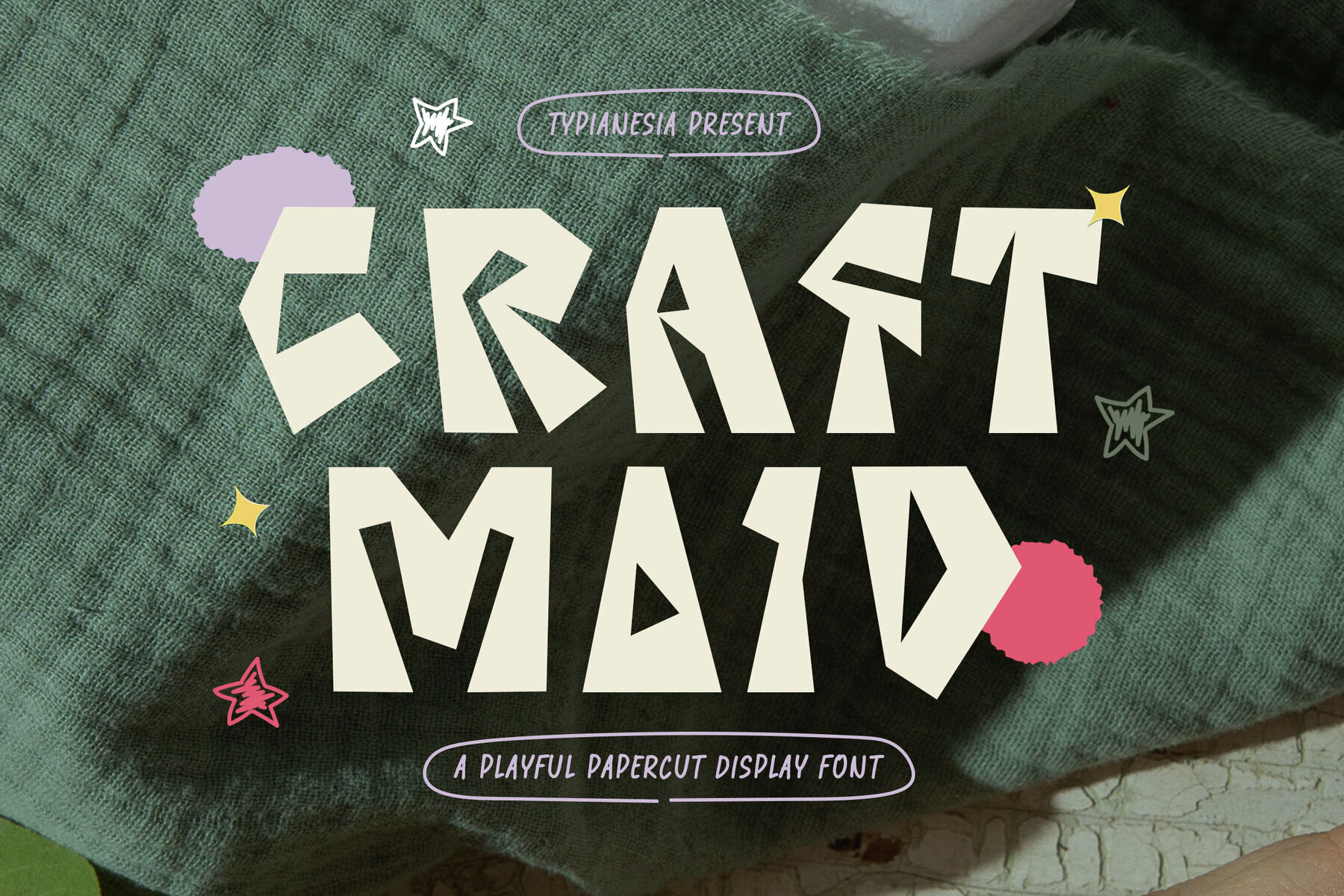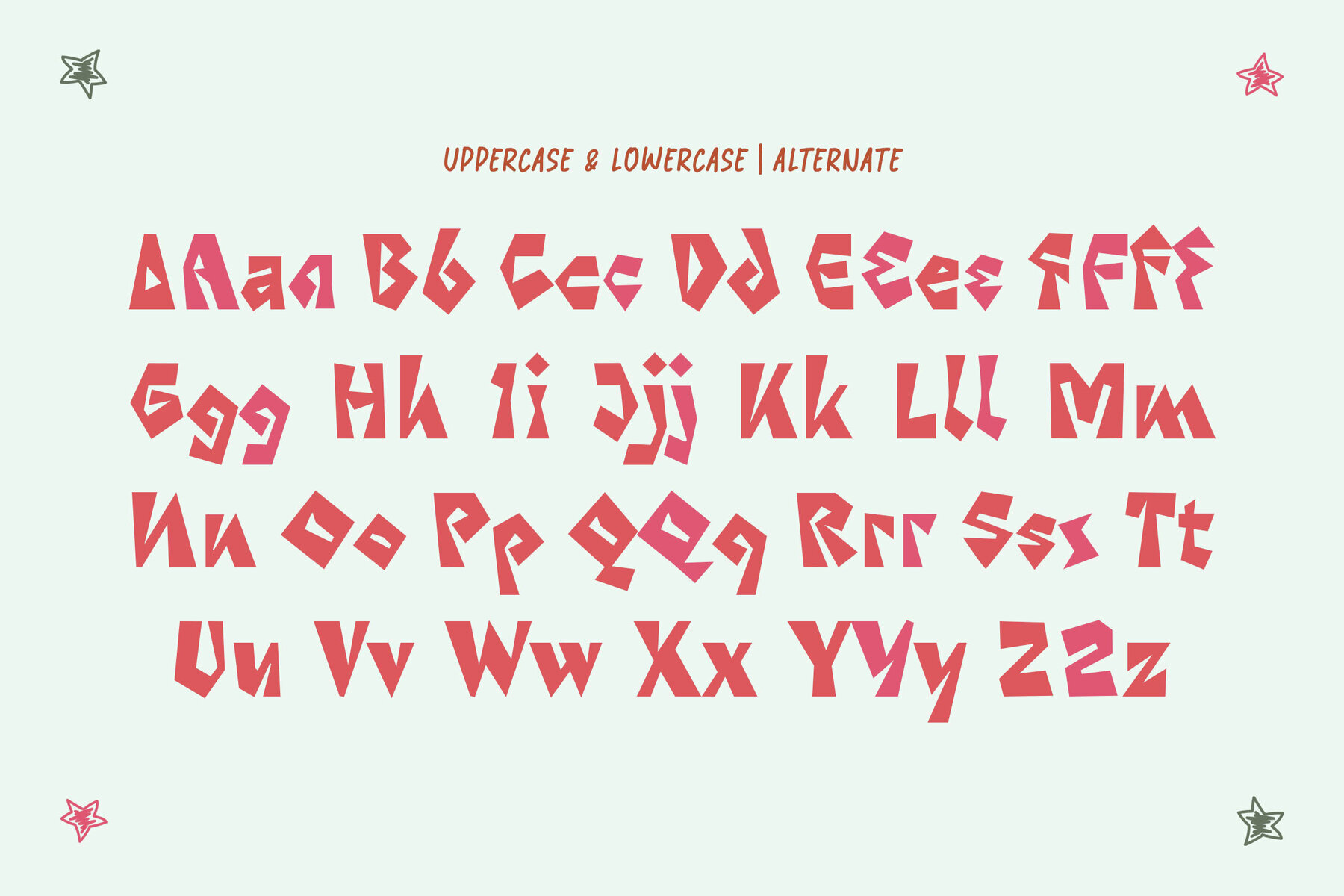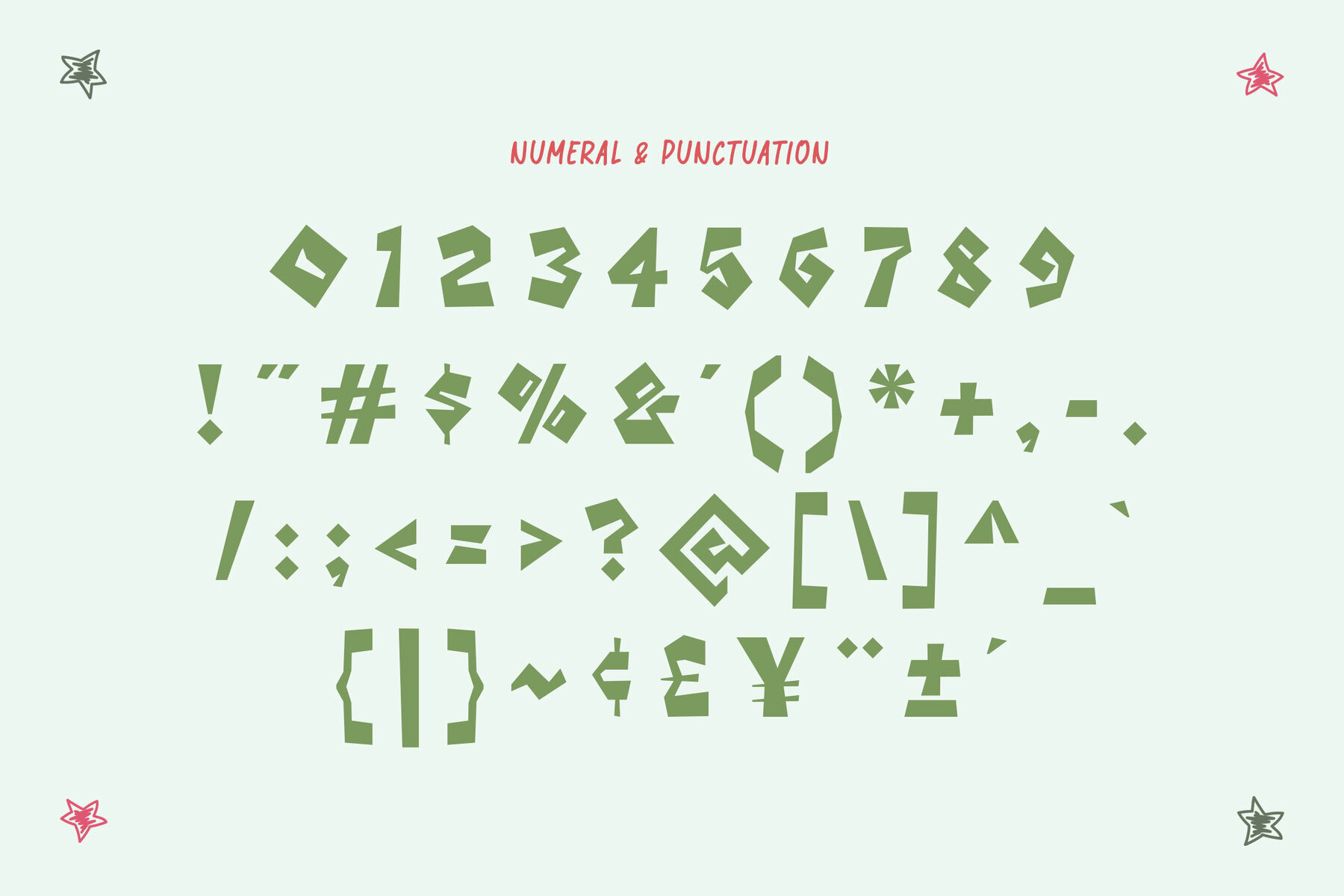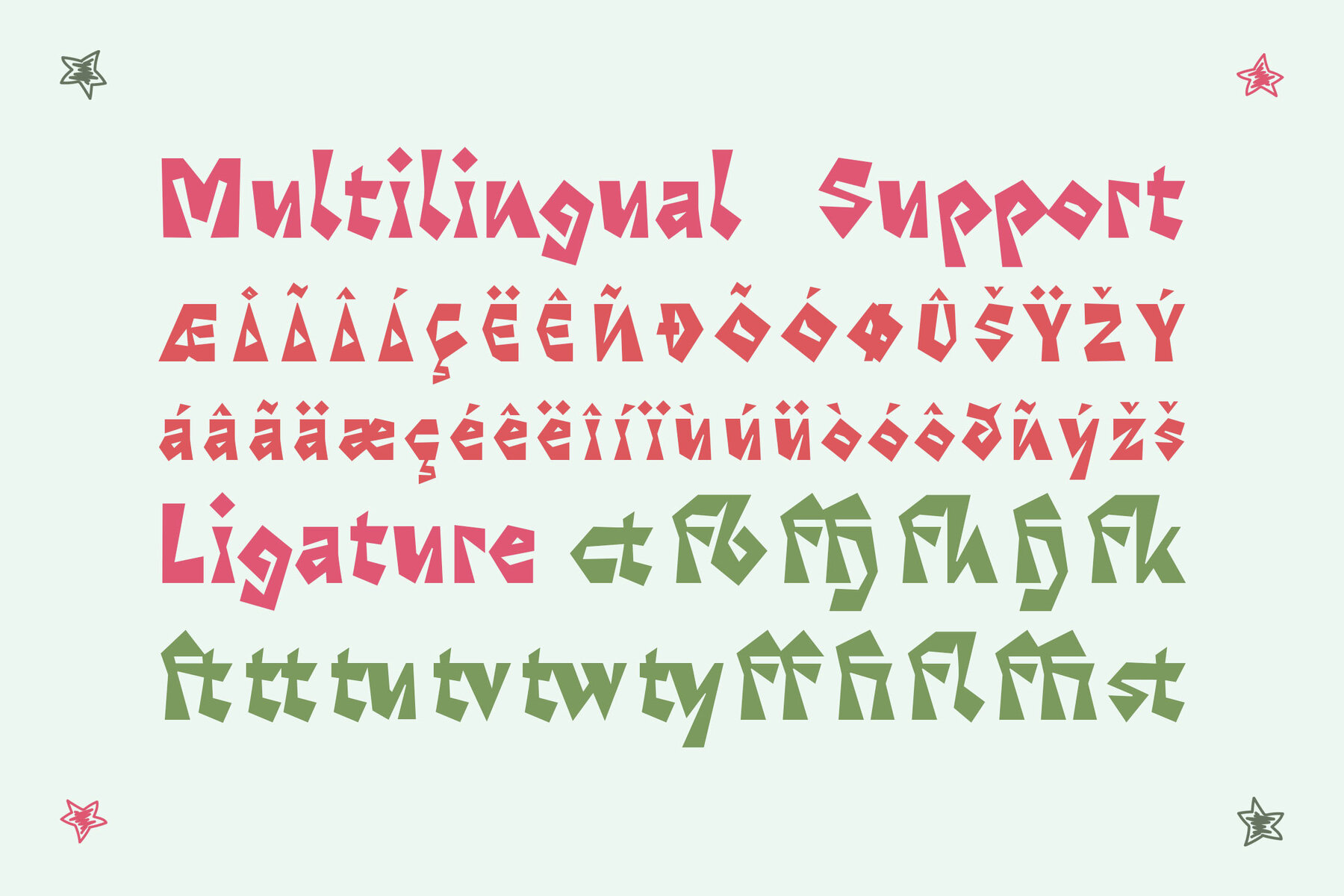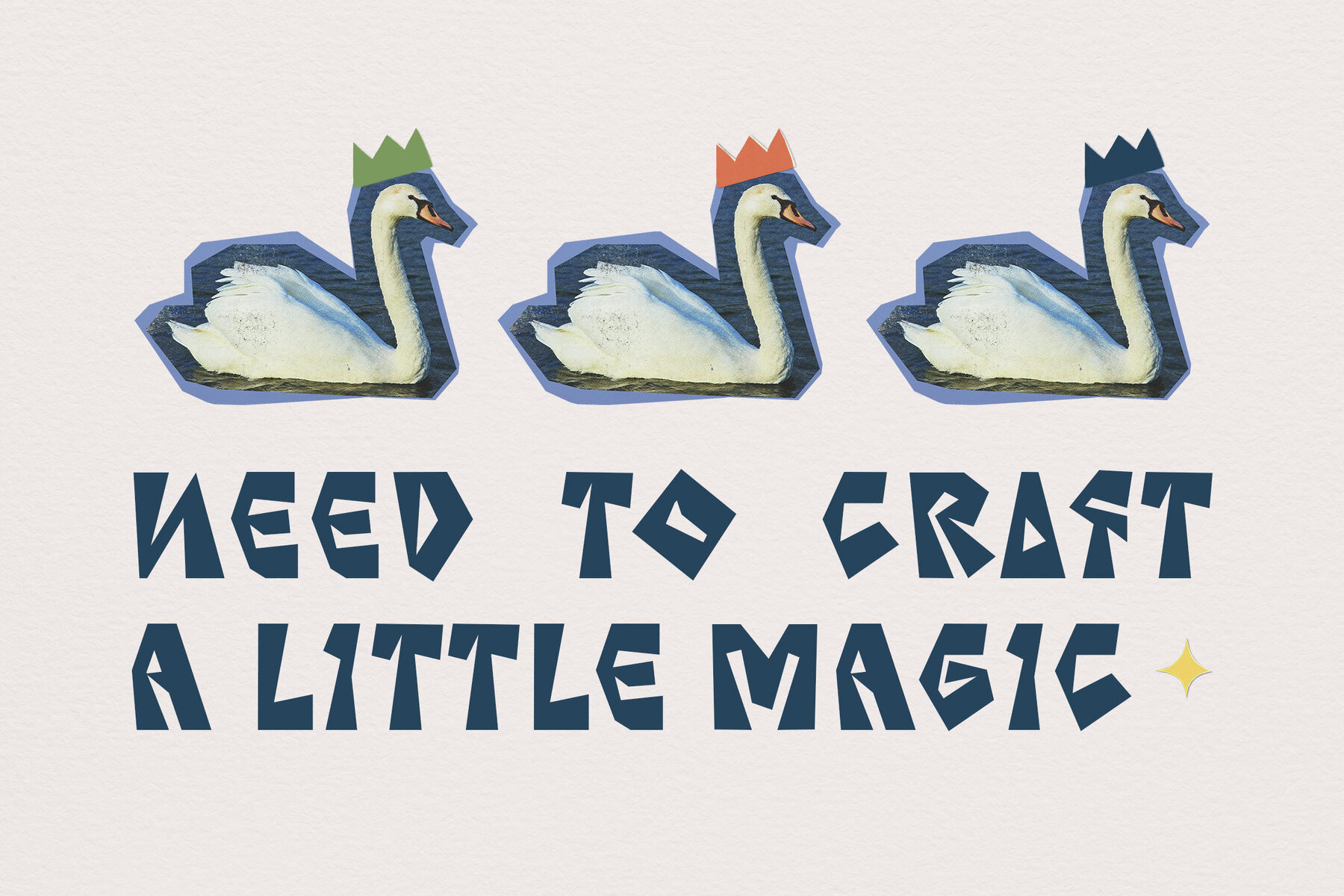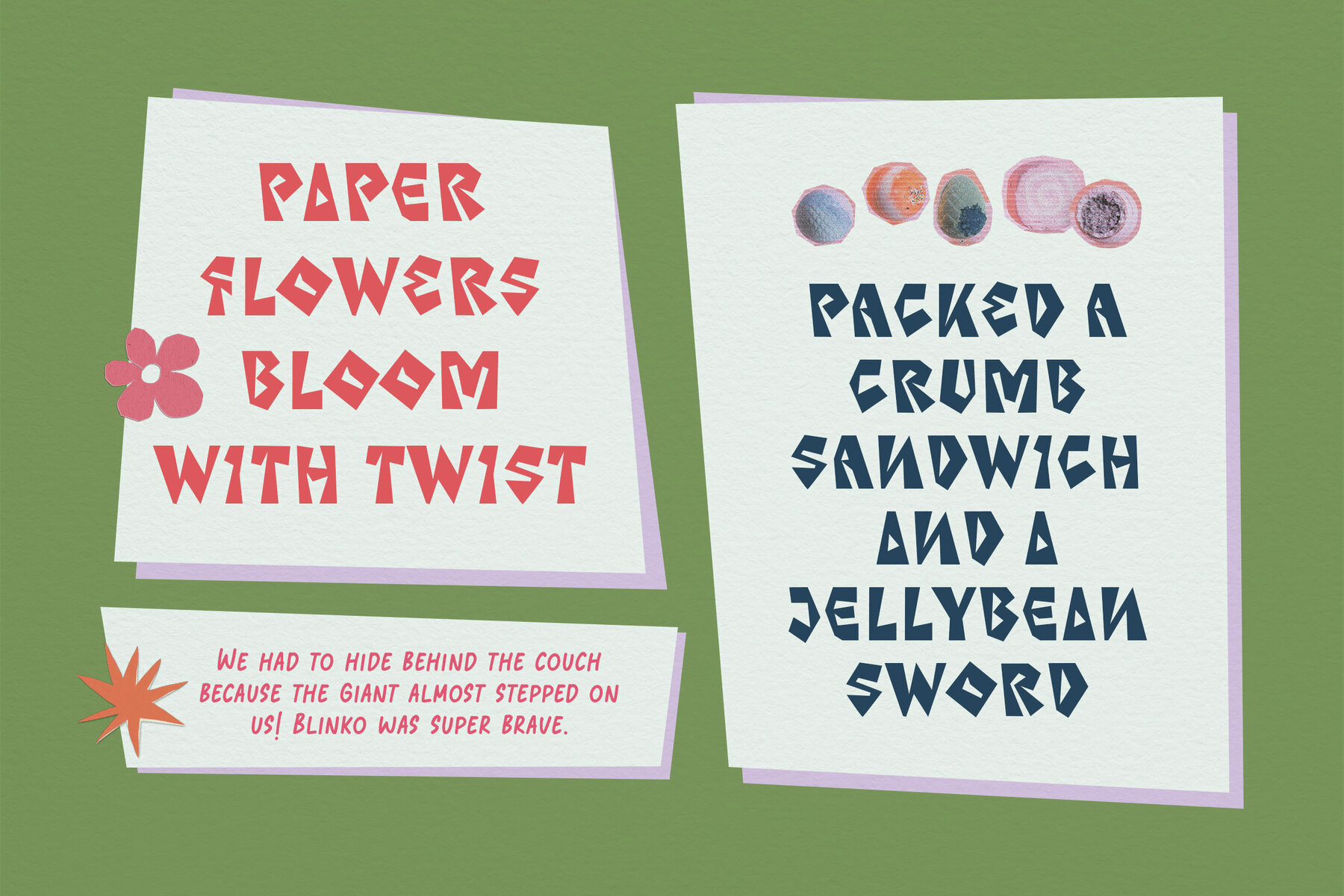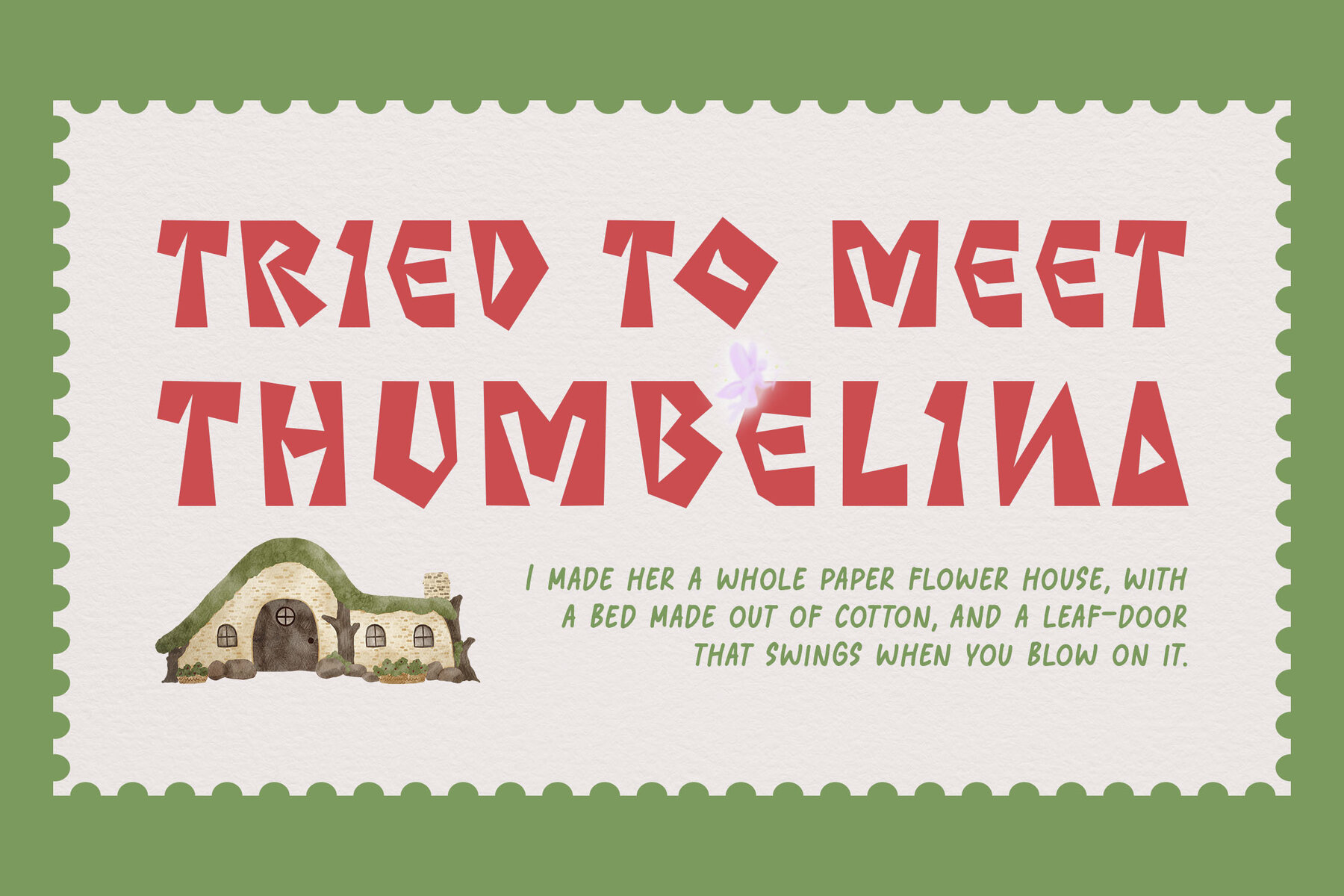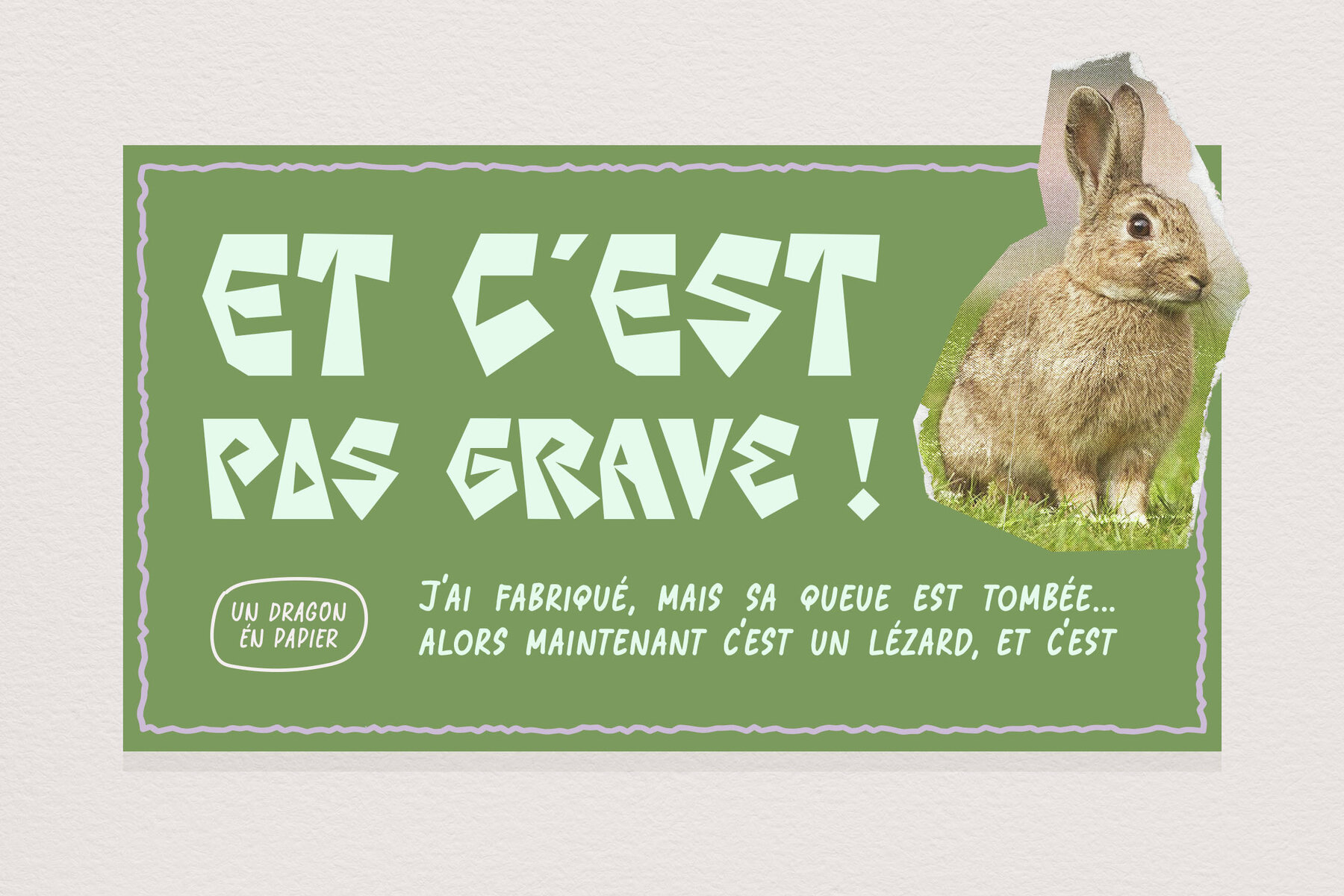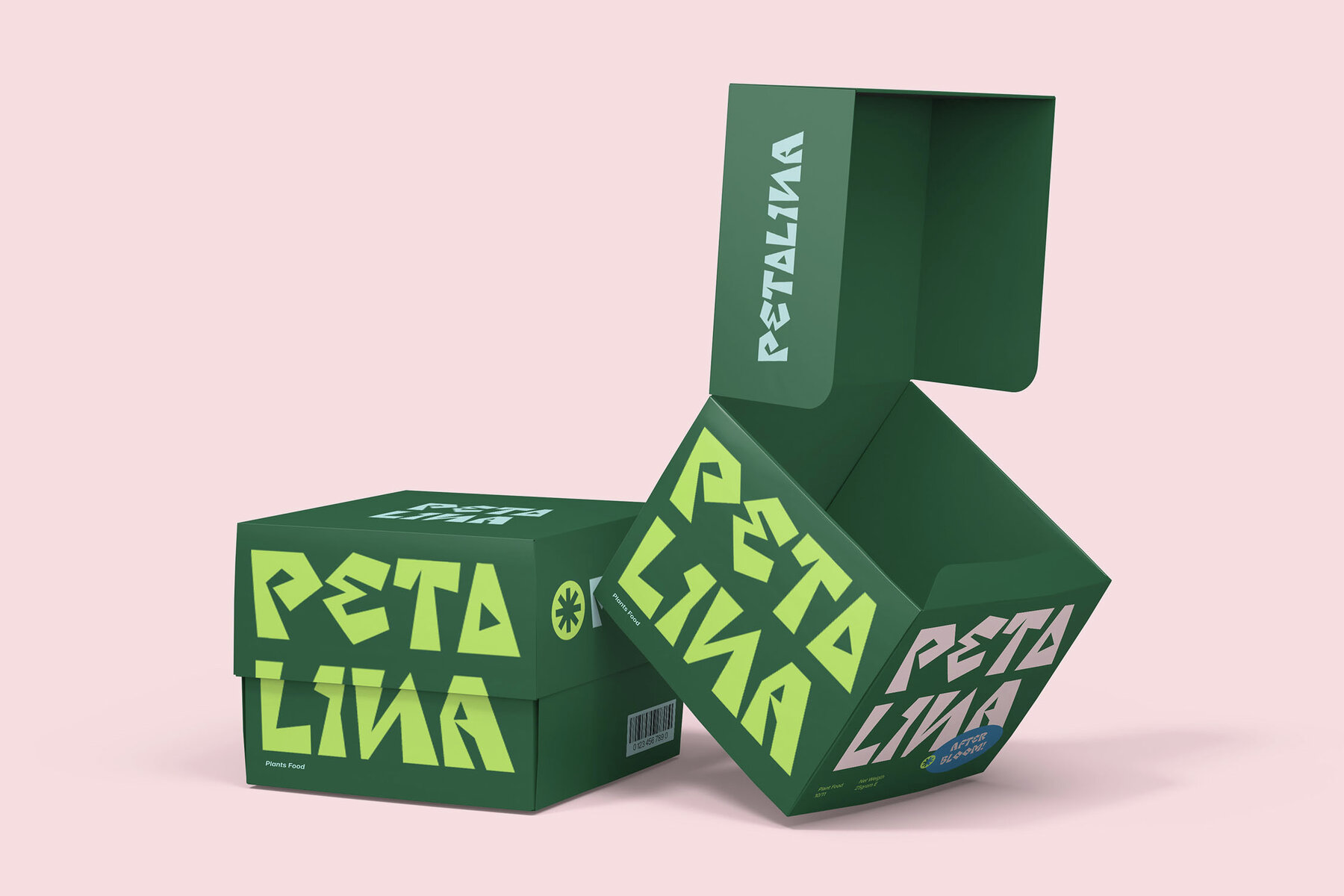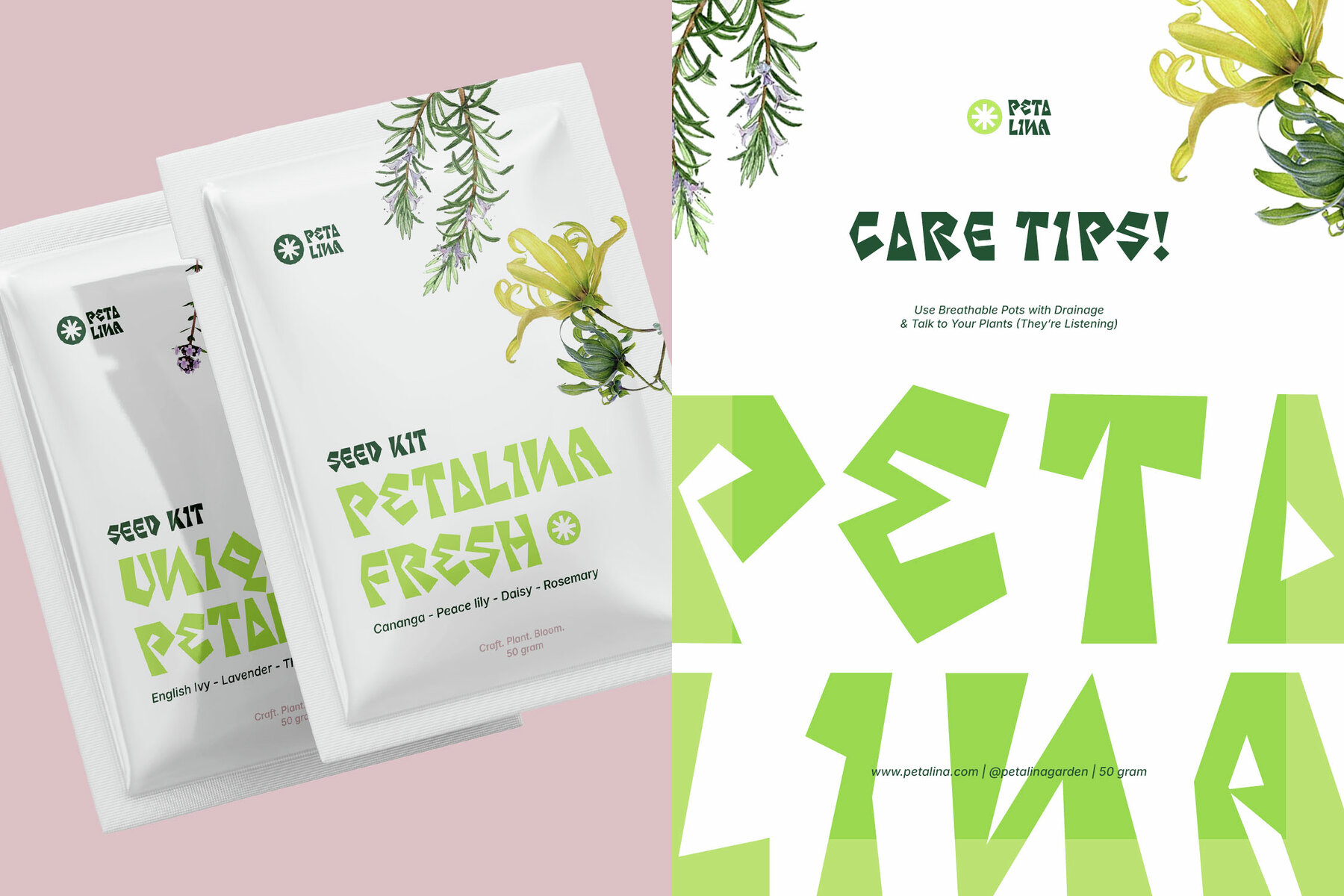
Craft Maid Font
Craft Maid Regular
Craft Maid is an engaging papercut display font that brings a unique, handcrafted charm to your creative projects. Its bold and whimsical style offers a delightful, slightly irregular character, imparting an authentic, organic feel. This typeface is ideal for children’s books, nature-inspired branding, or any design that seeks a quirky, friendly, and distinctive display font. Features: Infuse a touch of whimsy into your designs with the Craft Maid font.Craft Maid: A Playful Papercut Display Typeface